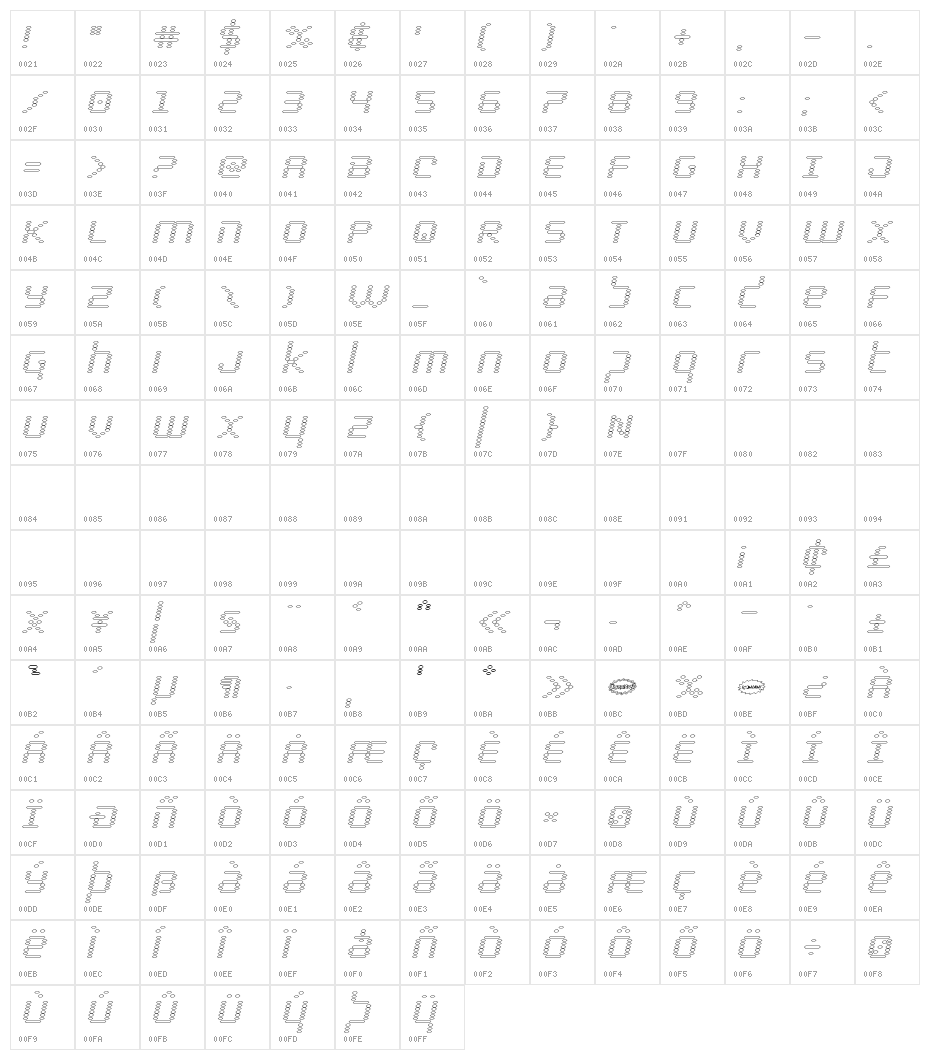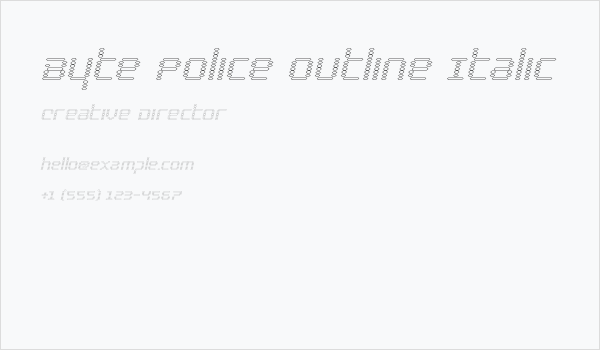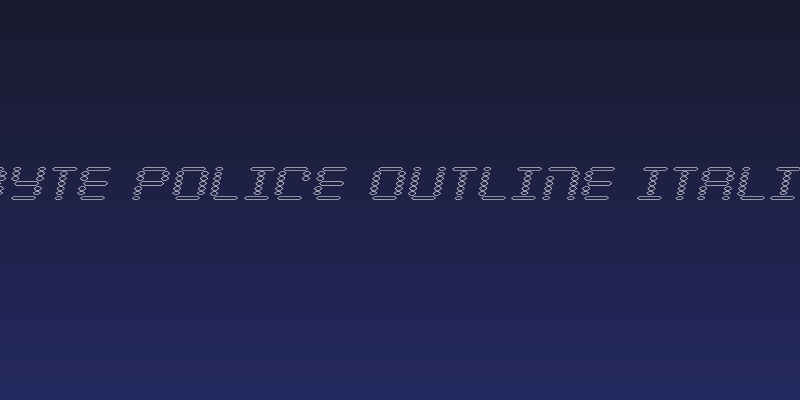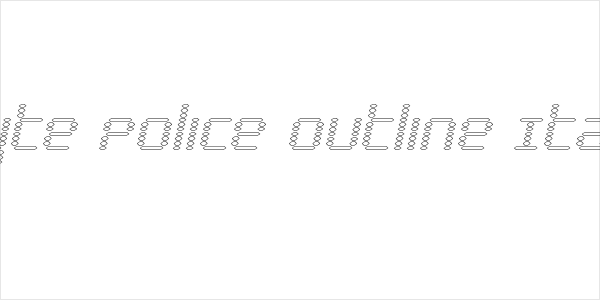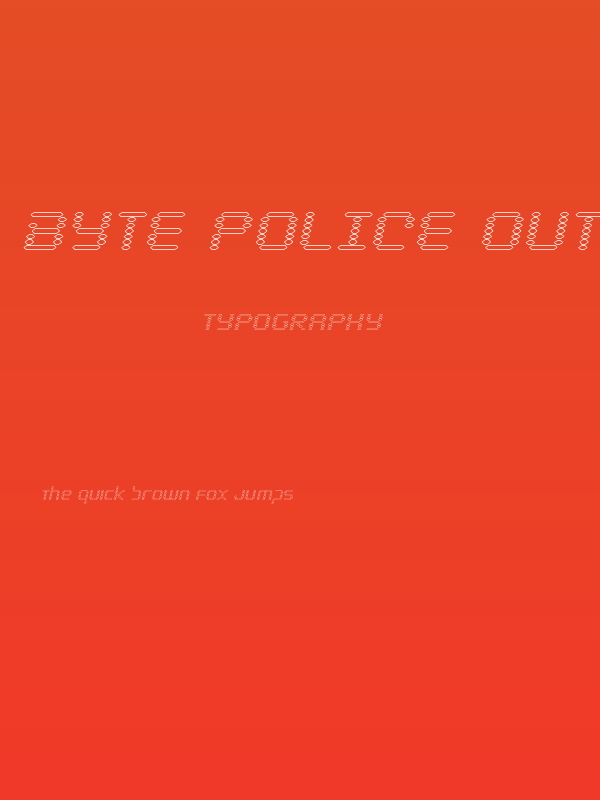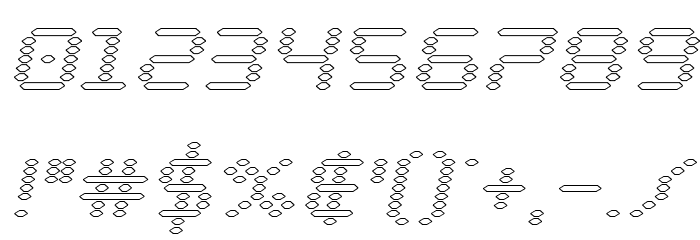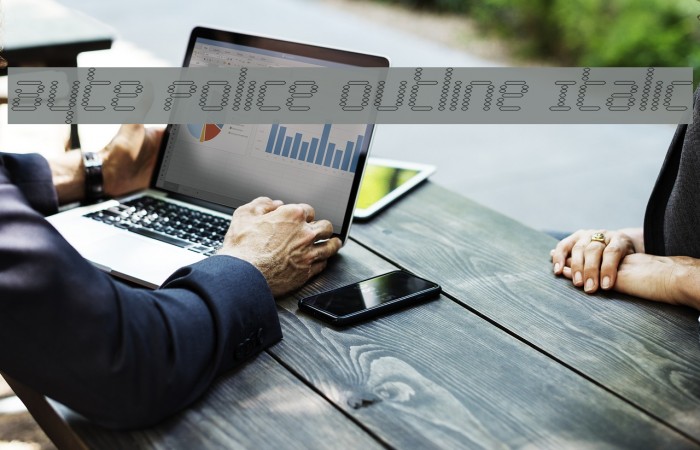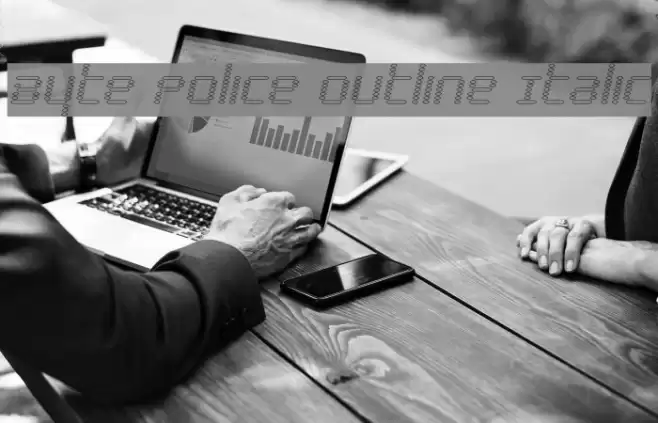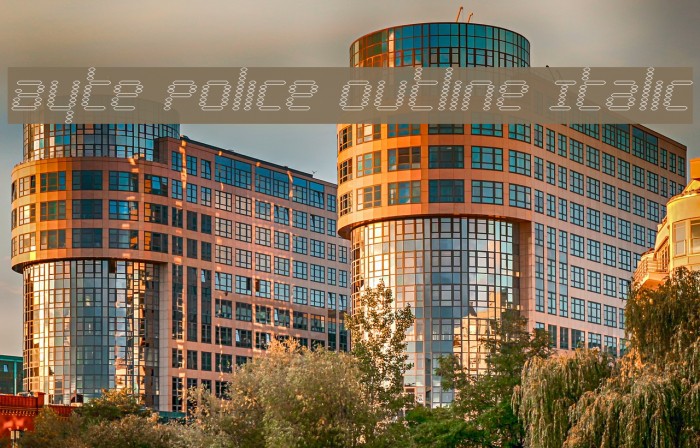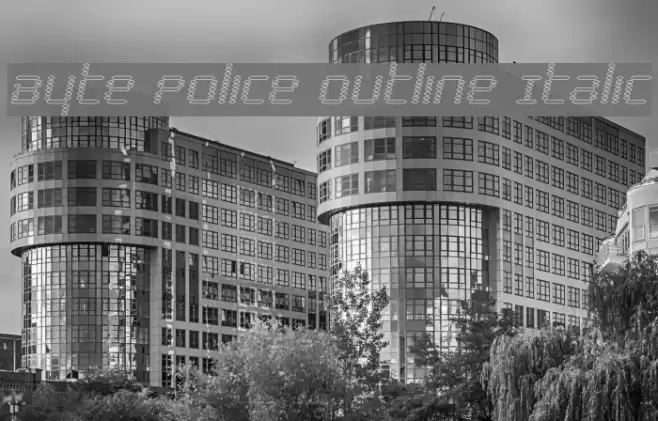
Byte Police Outline Italic Font
Byte Police Outline Italic Description
This font features a unique, futuristic design with an outline style that gives it a digital, tech-inspired look. The characters are composed of small circles connected by thin lines, creating an outline effect that is both modern and playful. The italic slant adds a dynamic feel, enhancing its suitability for creative and innovative projects. The font maintains a consistent structure across uppercase, lowercase, numbers, and special characters, ensuring readability while maintaining its distinctive style.
| Use Case | Logos, Headlines, Posters |
| Proposed Projects | Ideal for tech branding, digital art, video game design, and futuristic-themed posters. |